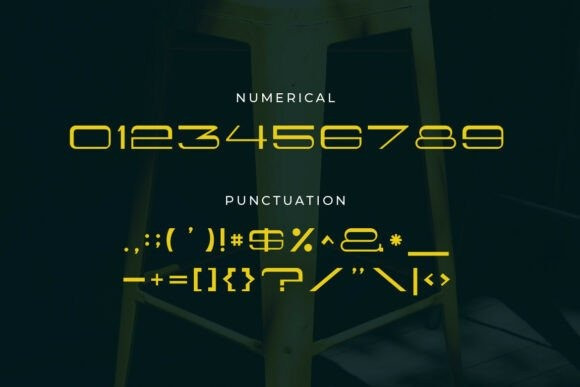
Horcuse Font
Horcuse Font is a bold and modern tech font designed to deliver clarity, control, and cutting-edge style. Inspired by digital innovation and high-speed environments, Horcuse features sharp lines, geometric forms, and a futuristic rhythm — ideal for technology branding, cyberpunk themes, UI/UX design, esports, and sci-fi visuals.